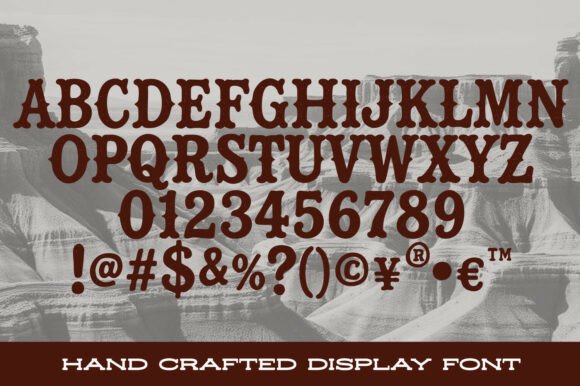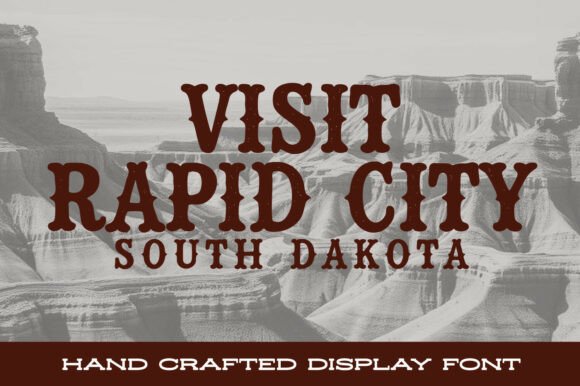
Introduction to Rapid City Font
As designers, we’ve all been there – staring at a blank canvas, waiting for the perfect font to bring our creative vision to life. For some, it’s the thrill of the hunt, scouring design resources for that elusive, high-quality font that captures the essence of our project. For others, it’s a matter of convenience, relying on tried-and-true favorites that never fail to deliver. But what happens when you stumble upon a font that embodies the very spirit of your design? Enter the Rapid City Font, a rugged display font that’s about to revolutionize your next creative project.
With its bold, distressed slab-serif design, the Rapid City Font is the perfect addition to any design arsenal. Whether you’re working on a vintage signage project, outdoor branding, or bold statement graphics, this font’s gritty, urban-meets-frontier personality is sure to make a statement.
Key Features of Rapid City Font
- Includes 5 styles of fonts: Regular, Bold, Italic, Bold Italic, and Outline, suitable for a variety of design needs.
- Supports Latin, Cyrillic, and Greek languages, making it a versatile design resource for international projects.
- Designed to work seamlessly with other design elements, Rapid City Font is an ideal choice for designers seeking a unique and high-quality design resource.
Honest Review: Rapid City Font
- ✨ What works well: The font’s unique blend of modern and classic elements makes it perfect for a wide range of design applications. The font’s clean lines and high-quality design ensure it looks great on both light and dark backgrounds.
Rapid City Font
Tips for Getting the Most Out of Rapid City Font
To get the most out of the Rapid City Font, experiment with different font sizes, colors, and styles. Use the font’s transparent background feature to create visually appealing designs. Also, pair the font with other high-quality design resources to create a cohesive and professional look.
The Rapid City Font is ideal for various creative projects, including graphic design, digital art, and typography. It’s also suitable for use in presentations, documents, and social media graphics. The font’s versatility and high-quality design make it a valuable addition to any design resource collection.